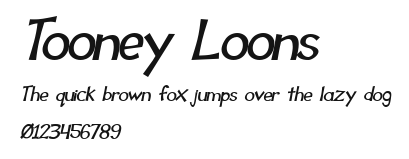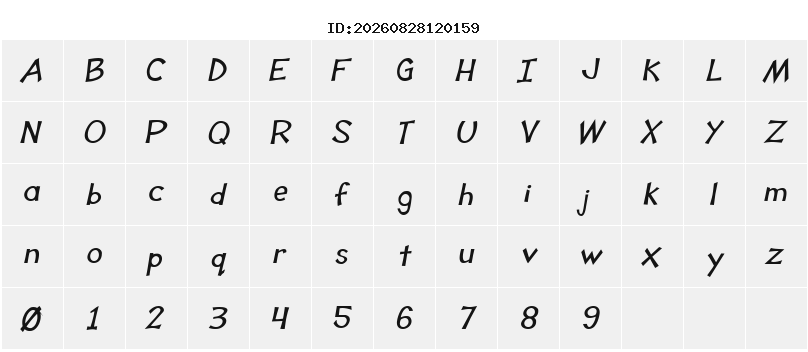
• Font Name: Tooney Loons
• Font ID: JasonL.Arthur: Tooney Loons Italic: 2009
• Full Font Name: Tooney Loons Bold Italic
• Designer: Jason Arthur
• Manufacturer: Jason L. Arthur
About Tooney Loons.ttf
Tooney Loons.ttf is a modern, elegant sans-serif font designed for ultimate readability and visual harmony. Perfect for branding, headlines, web design, and print materials.